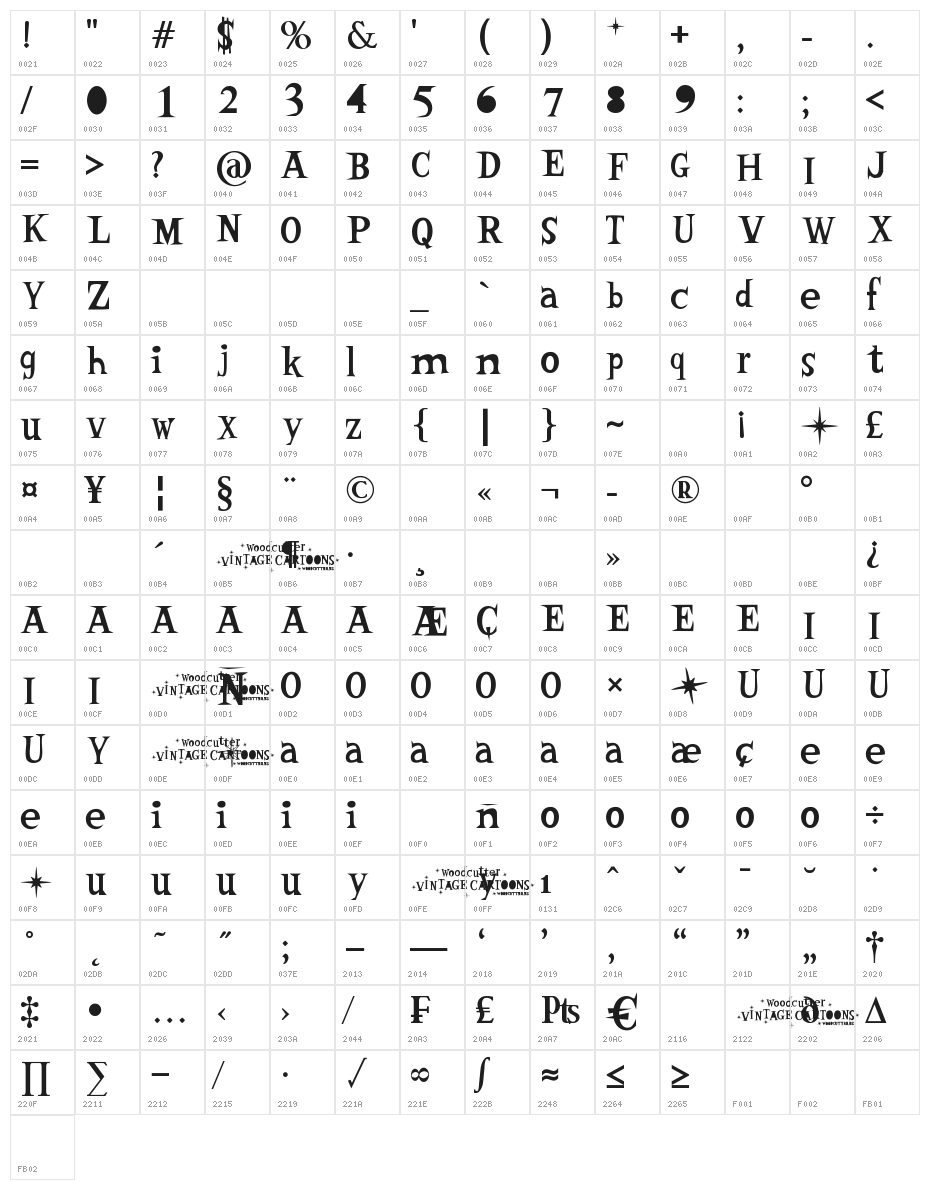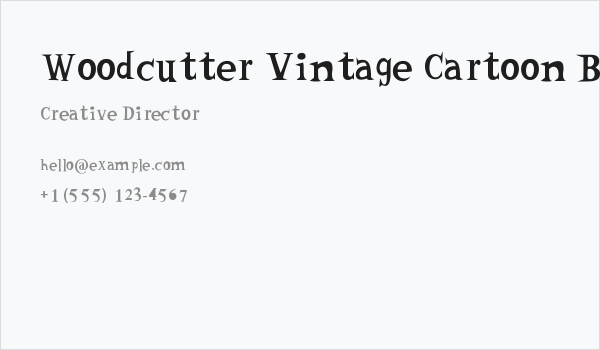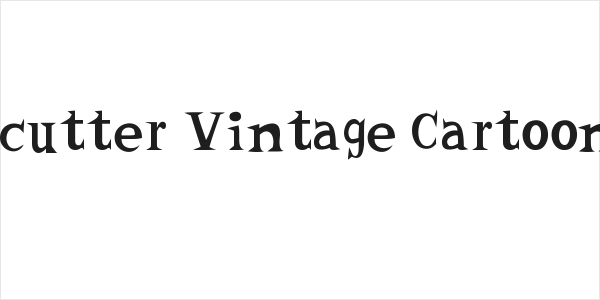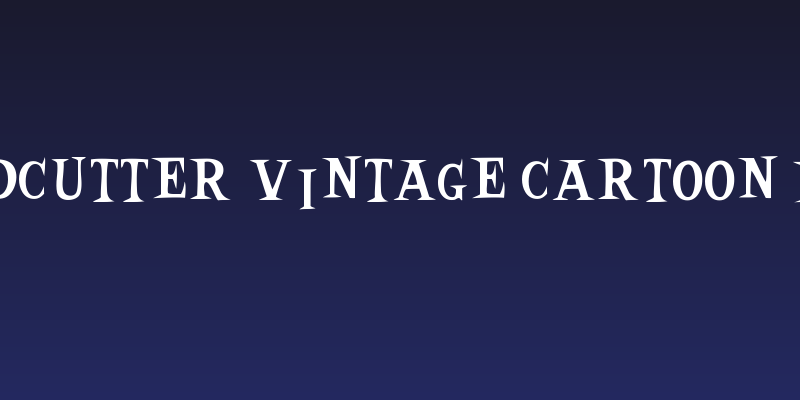
Woodcutter Vintage Cartoon Bold Font
Woodcutter Vintage Cartoon Bold Description
This font exudes a playful and bold character, reminiscent of vintage cartoons. The uppercase letters are robust and slightly whimsical, with exaggerated serifs that add a touch of flair. The lowercase letters maintain a consistent style, offering a harmonious blend of boldness and readability. Numbers are equally bold, with a rounded appearance that complements the overall design. Special characters are crafted with the same attention to detail, ensuring they fit seamlessly with the rest of the typeface. This font is ideal for projects that require a touch of nostalgia and fun, making it perfect for headlines, posters, and branding materials that aim to capture a vintage cartoon aesthetic.
| Proposed Projects | Ideal for vintage-themed posters, playful branding, children's book titles, and retro-style advertisements. |